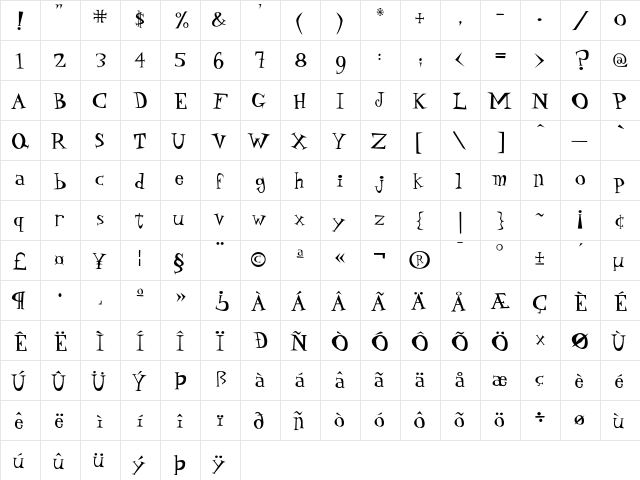
DaddyO Hip Font Preview
DaddyO Hip
DaddyO Hip Font Details
Design Context for DaddyO Typeface
DaddyO is a composed and adaptable typeface that performs quietly and consistently across a wide range of design contexts.
Pro Tip: Use DaddyO in both headline and body roles to test its range before committing to a single application.